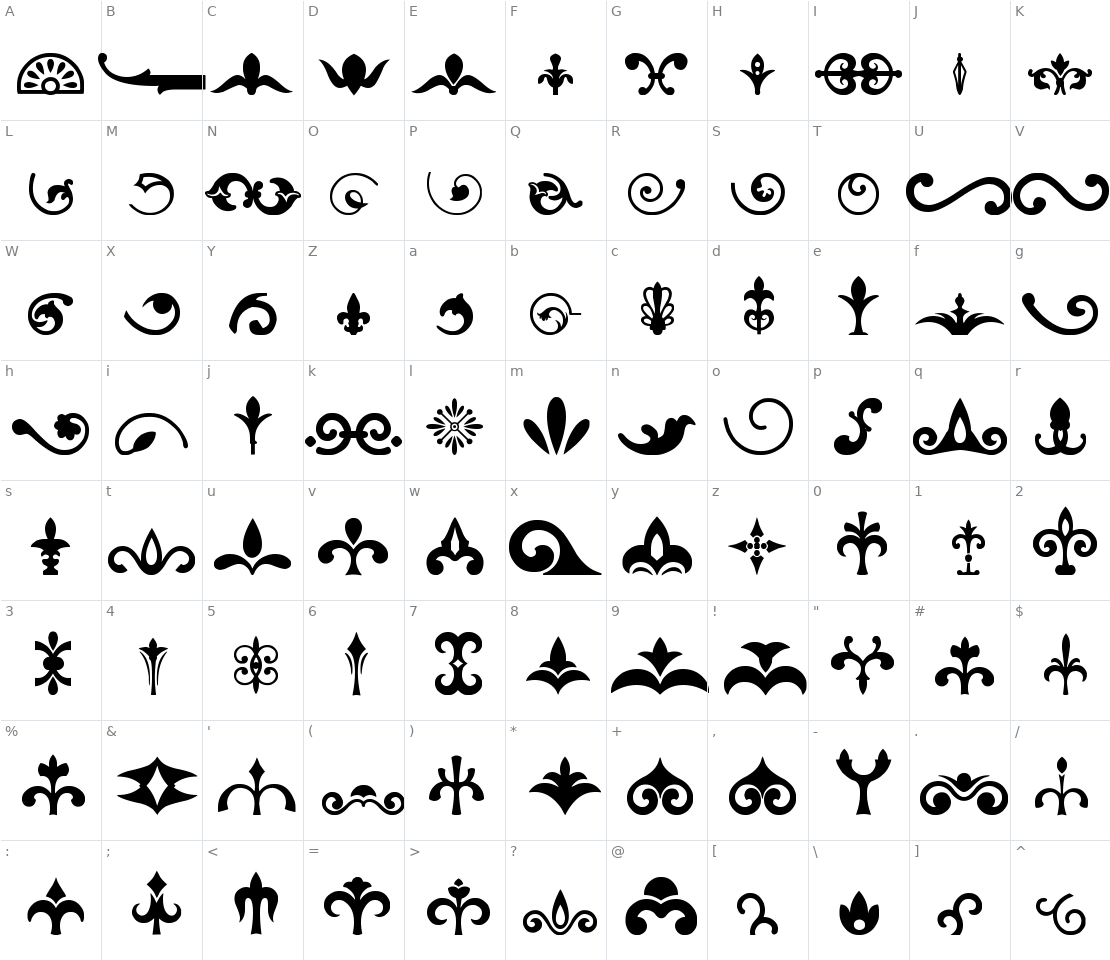
Ornaments
by zanatlija
Ornaments by zanatlija is a collection of decorative floral flourishes, borders, and vintage-style symbols rather than a traditional alphabet. The designs lean elegant and classical, with curving scrollwork and botanical motifs that feel right at home framing invitations, certificates, menus, and editorial layouts. Useful anywhere you need hand-finished ornamental detail without actually illustrating it yourself.